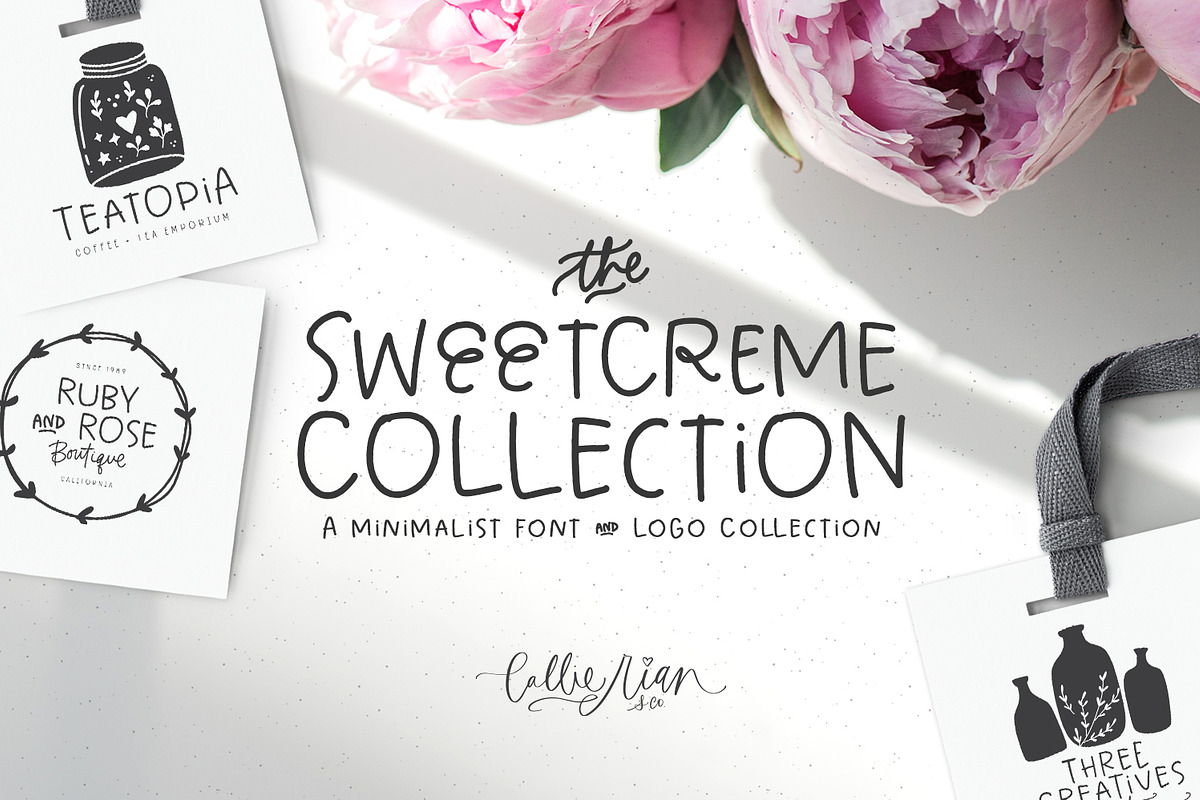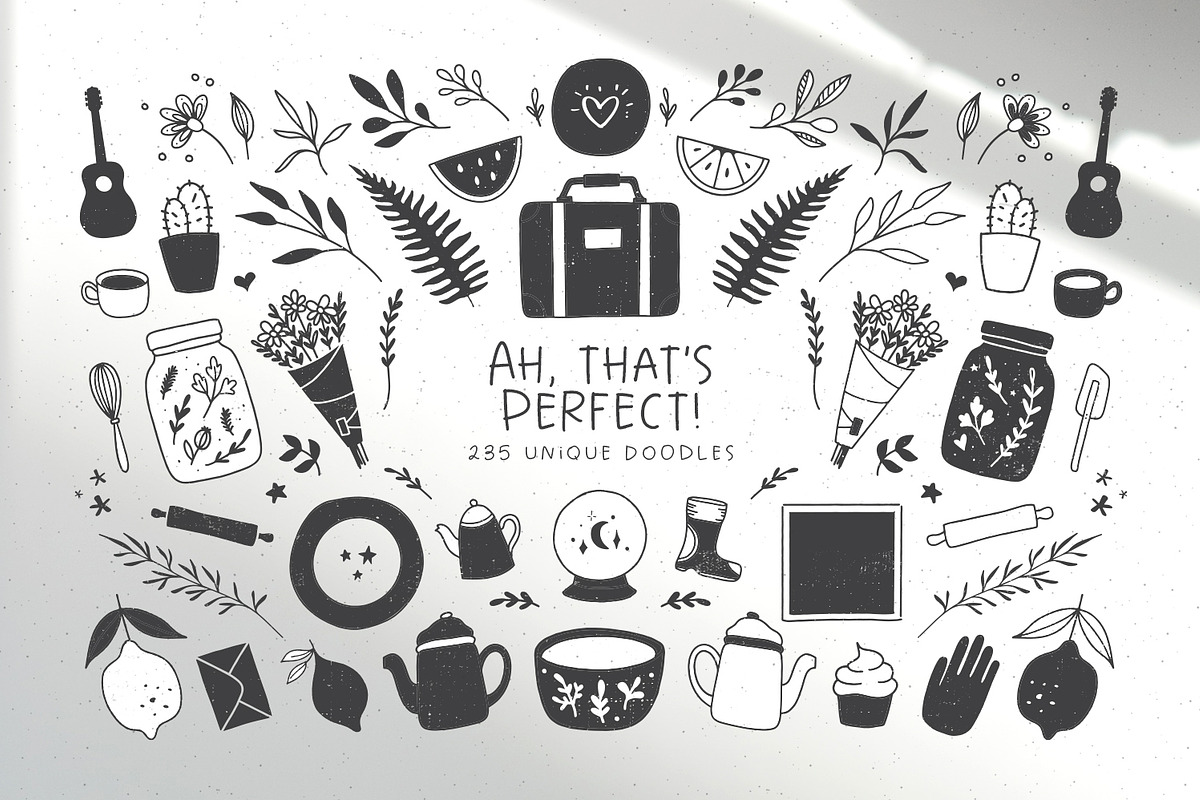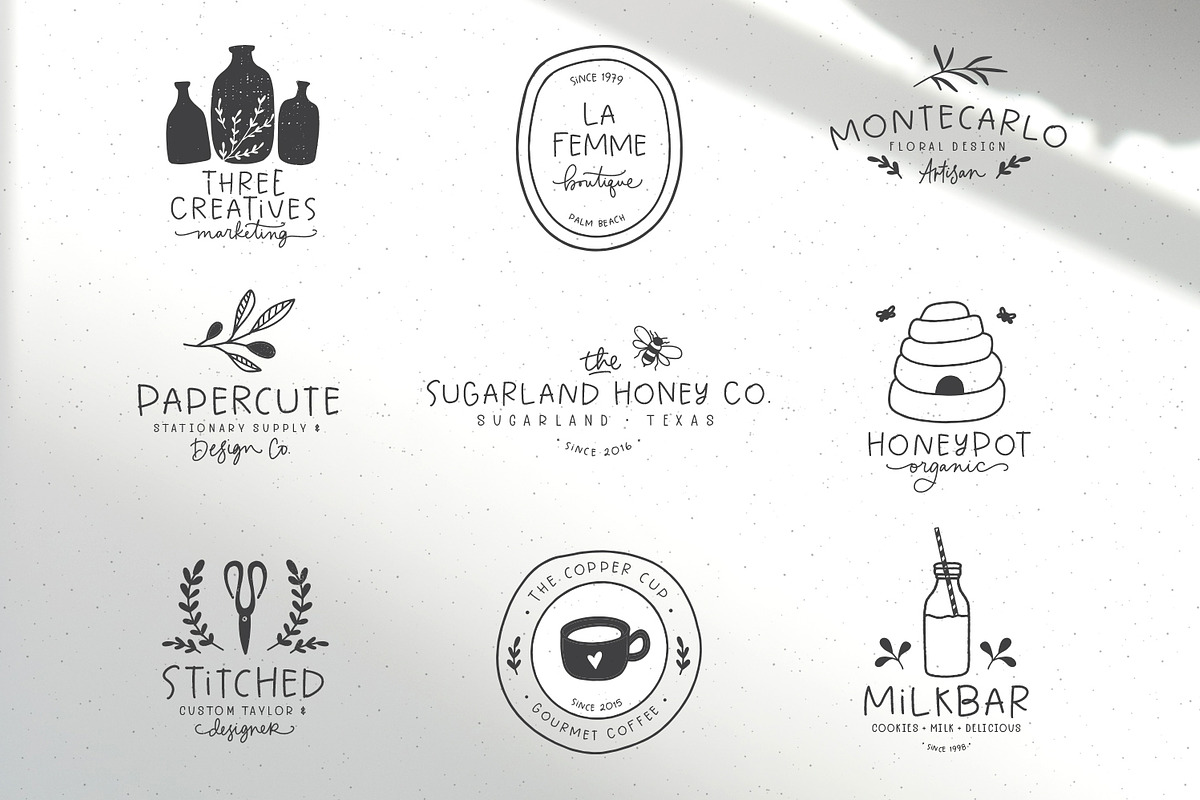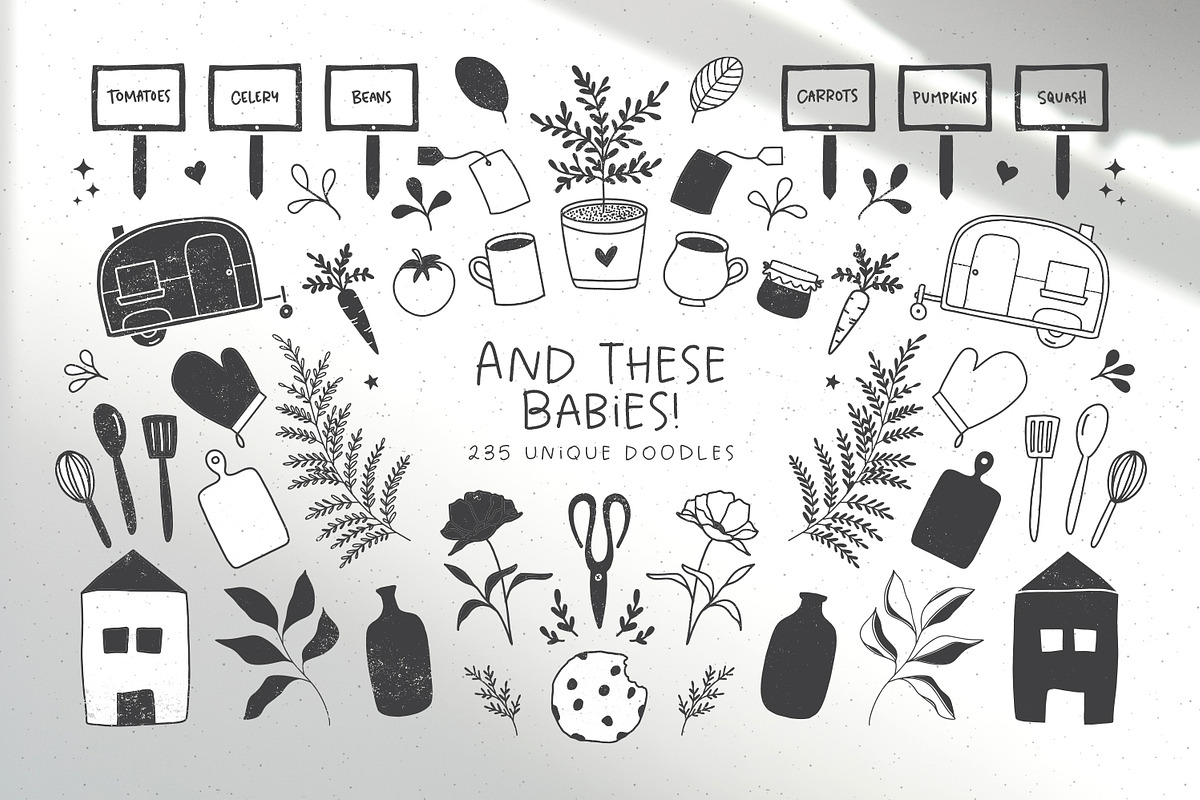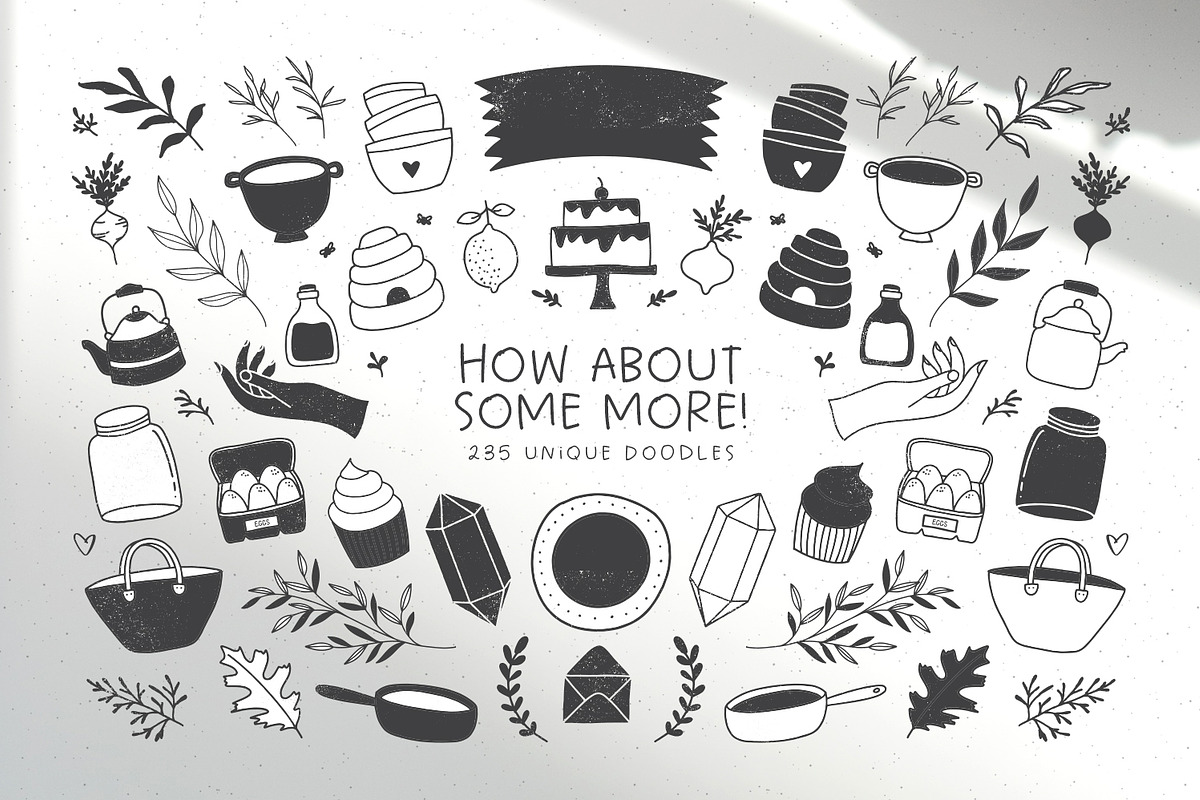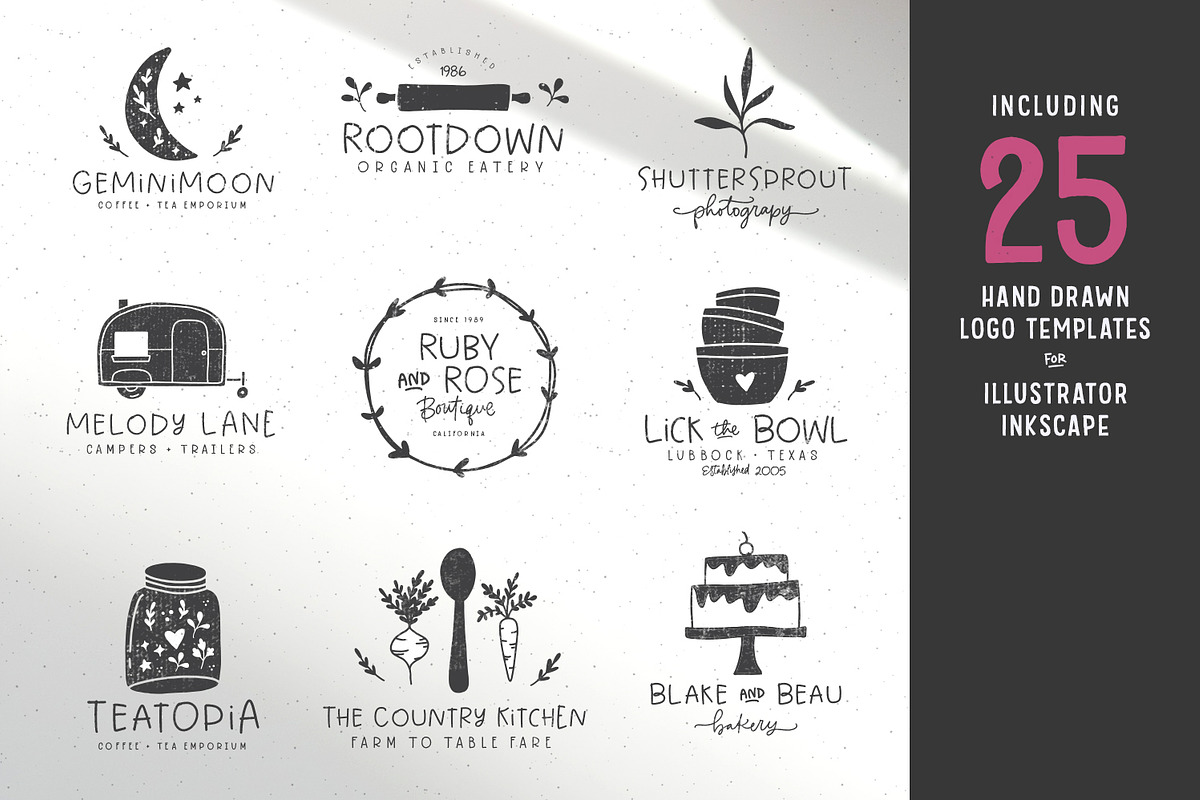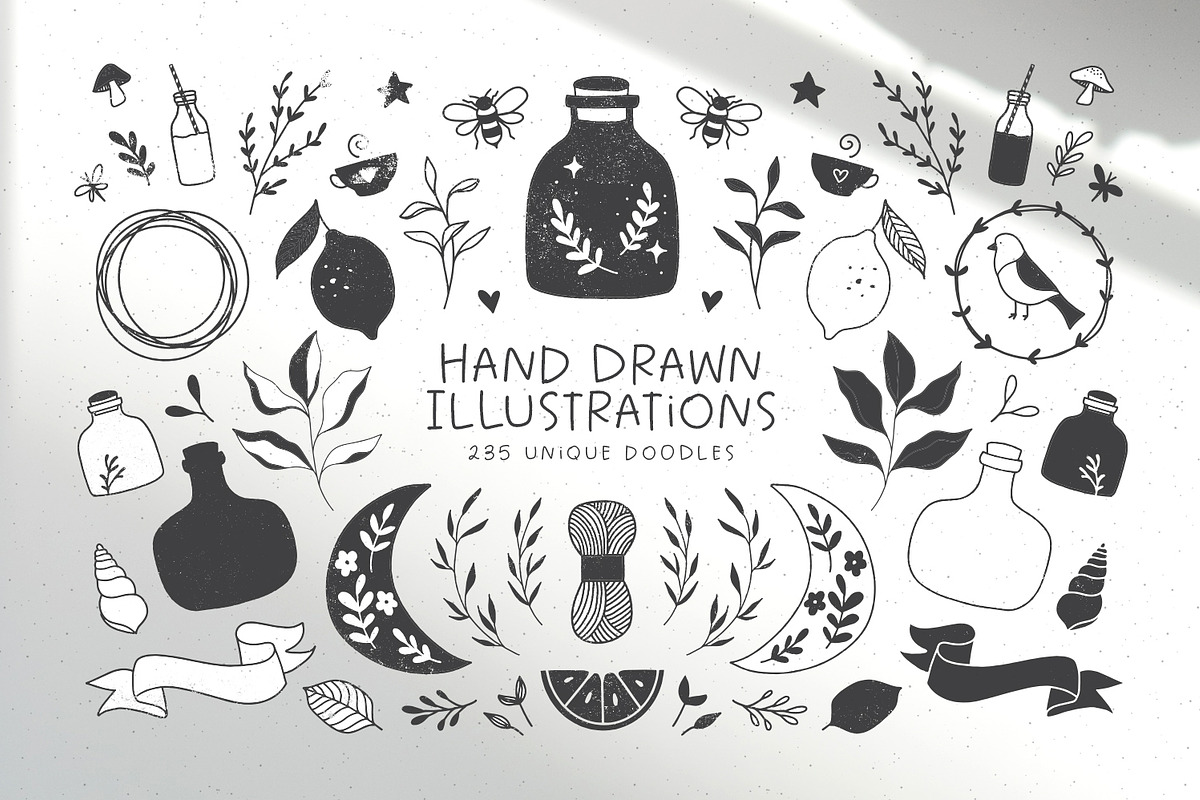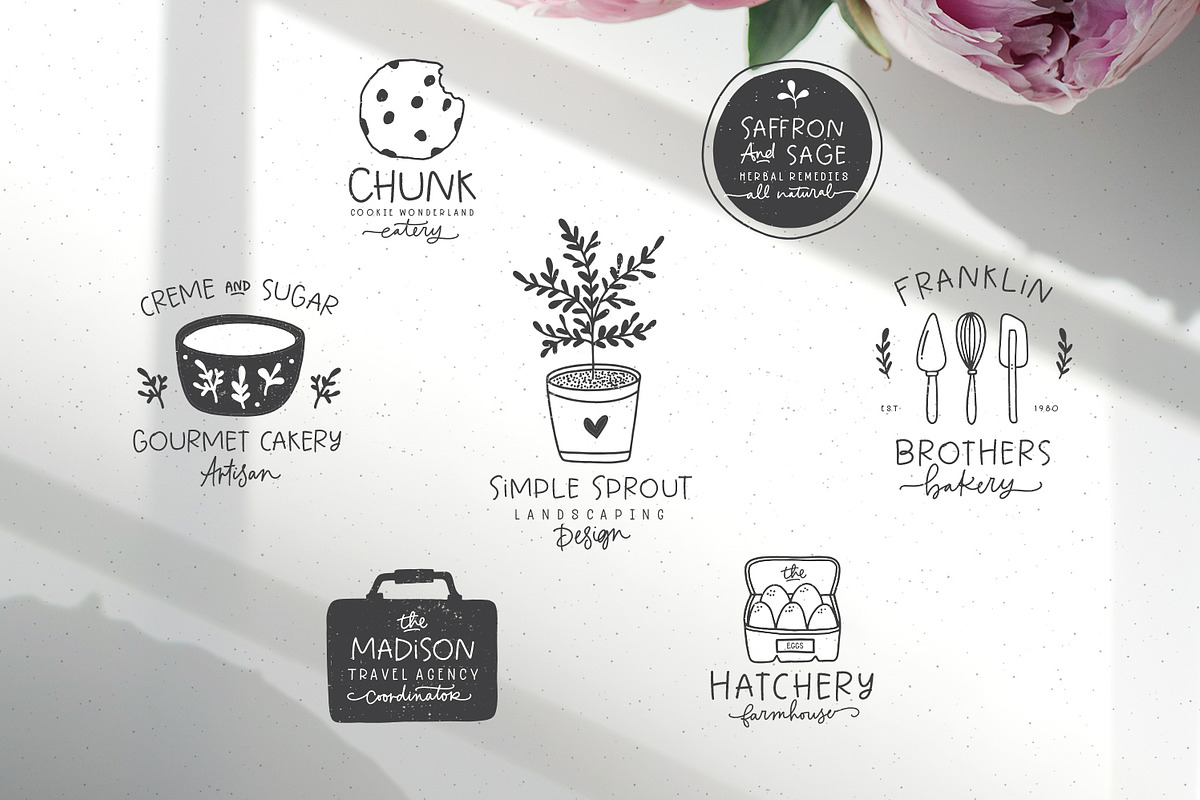
Sweetcreme Font & Logo Collection
Introducing the The Sweetcreme Font & Logo Collection!
Modify any logo template in Adobe Illustrator, or create your own, using 235 brand spanking new illustrations! Then search through 97 popular job titles for some unique hand lettered subtext. Design, create, play - the possibilities are endless!
Sweetcreme Regular (OTF) - A sweet and simple handwritten typeface with automatic ligatures and catchwords. Includes Western European Language Support.
Sweetcreme Upright (OTF) - An upright version to compliment Sweetcreme Regular. Use as logo subtext. Includes Western European Language Support.
Sweetcreme Doodles (OTF) - 68 handy doodles, catchwords and dingbats to supplement your logos.
Sweetcreme Catchwords (OTF) - I’ve taken over 100 of the most common job titles, catchwords and logo subtexts, and turned them into a typeface! Just scroll through using a Glyphs Panel or FontBook, and find the perfect hand lettered description for your clients or yourself.
235 Hand Drawn Elements, including florals, jars, abstract shapes, leaves, fruits, cups, kettles, cupcakes and more! (AI format)
If you have your heart set on a new logo, but don’t know where to start, this pack was made for YOU! With over 235 hand drawn illustrations, 4 font files (including catchwords, dingbats and job titles), plus 25 easy-edit logo templates, the Sweetcreme Collection is just the thing to get you going! 💕